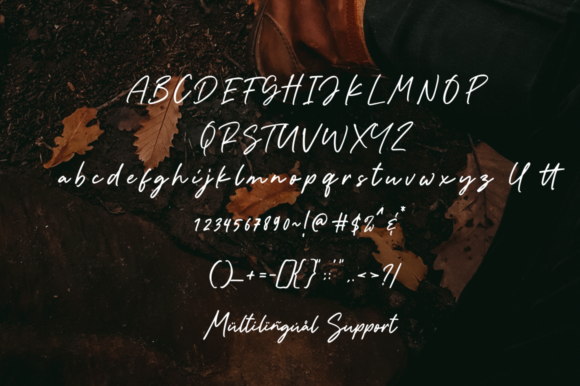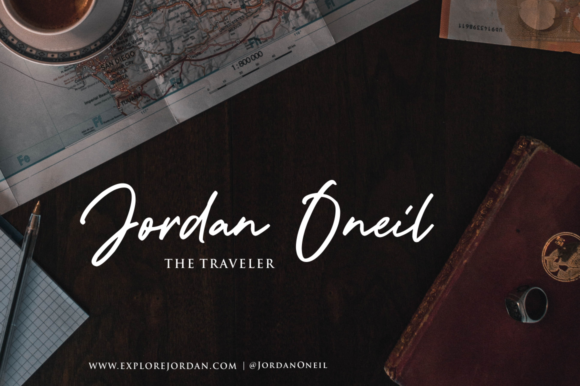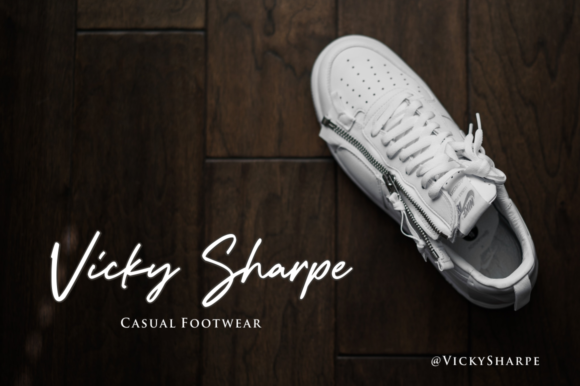
About The Plumber Font
The Plumber is a delicate and elegant handwritten font. Its distinct and well rounded letters make this font a masterpiece. Fall in love with its incredibly versatile style and use it to create spectacular designs!